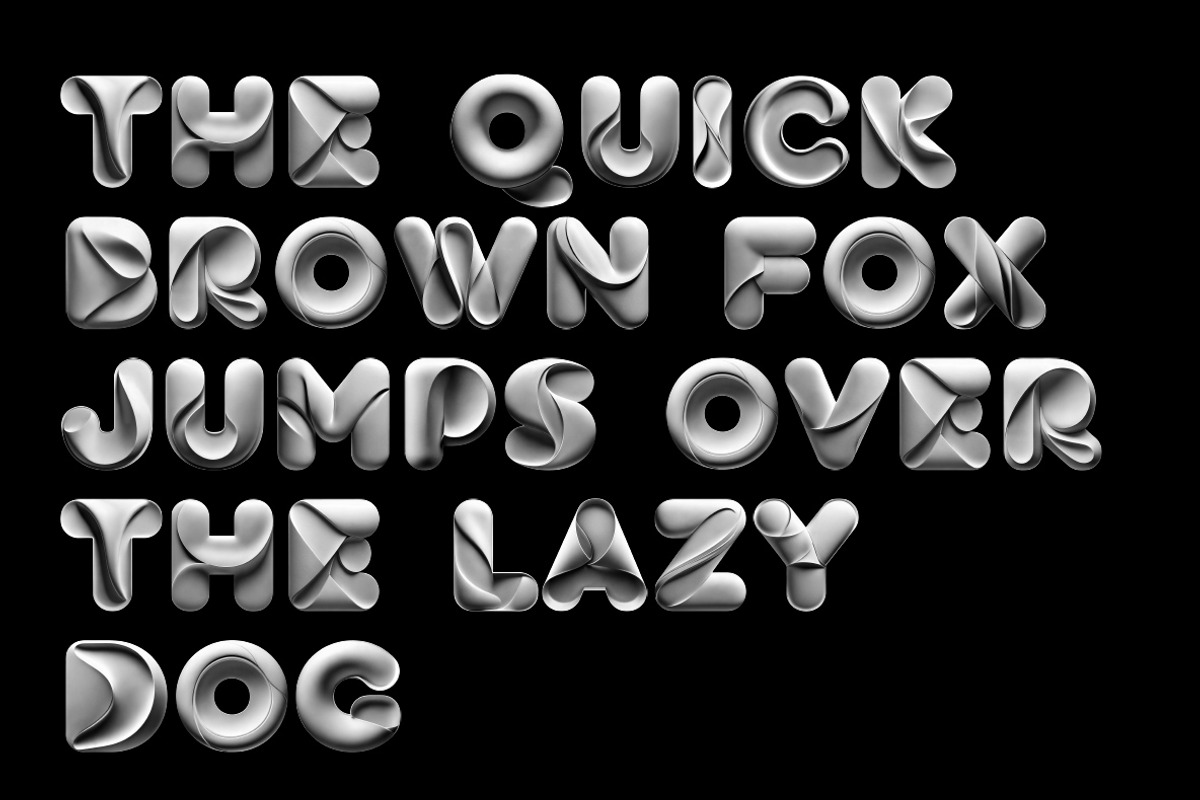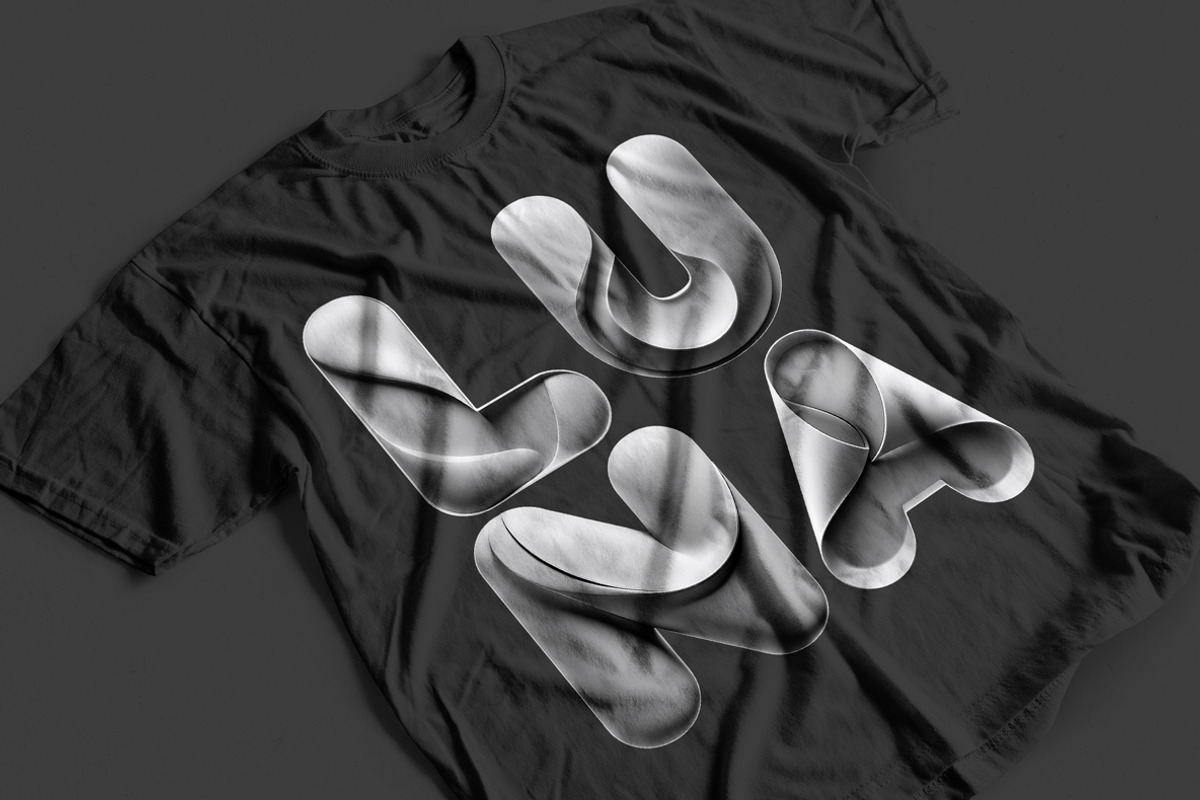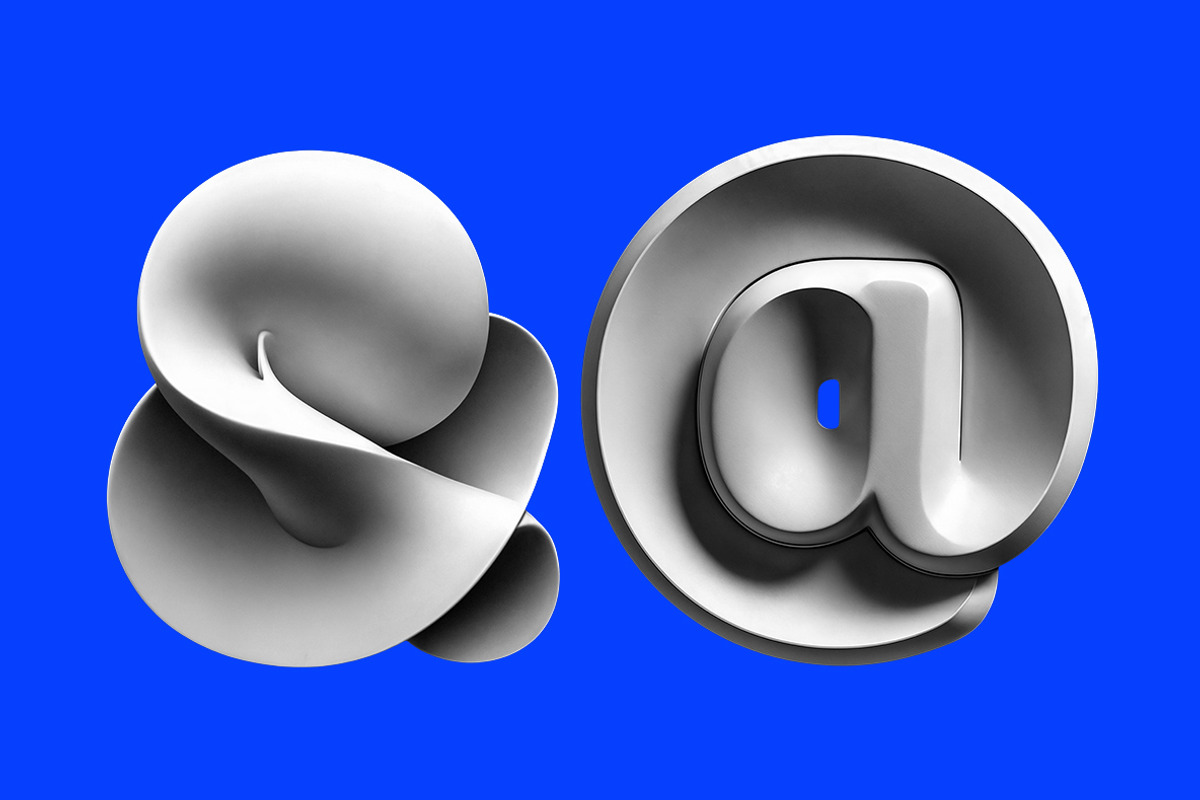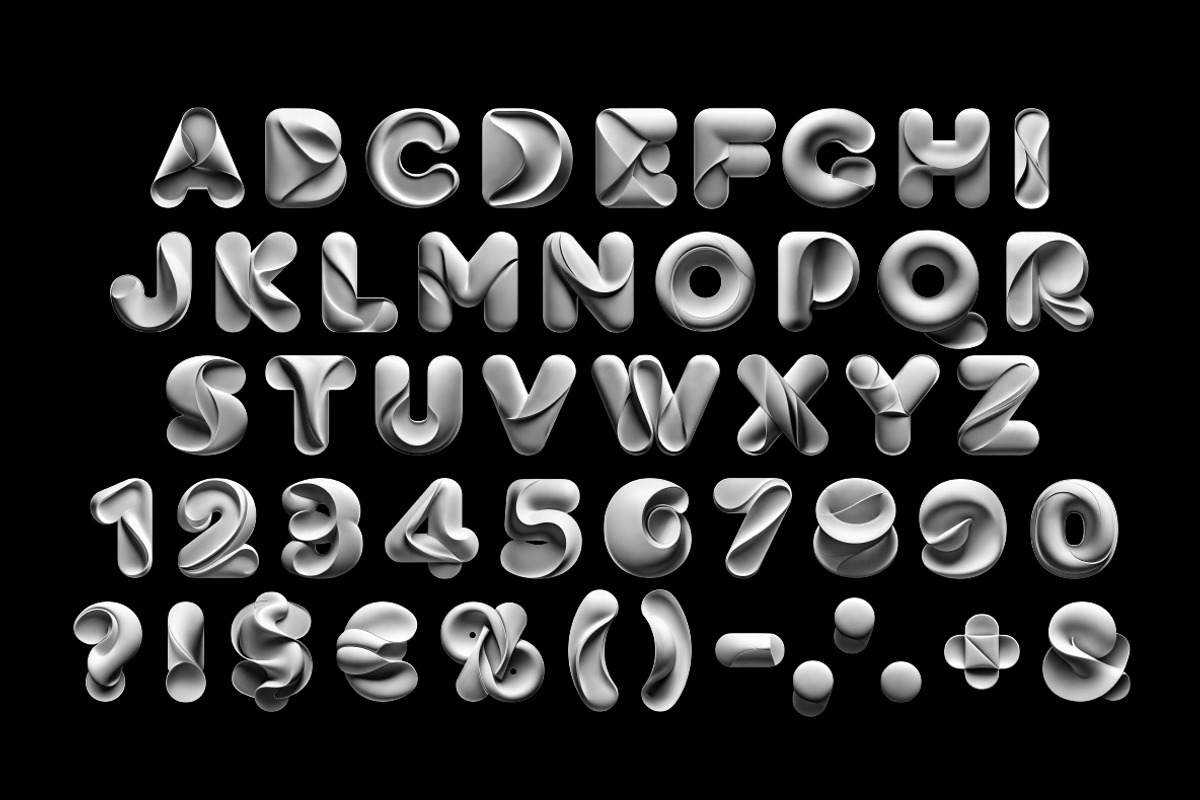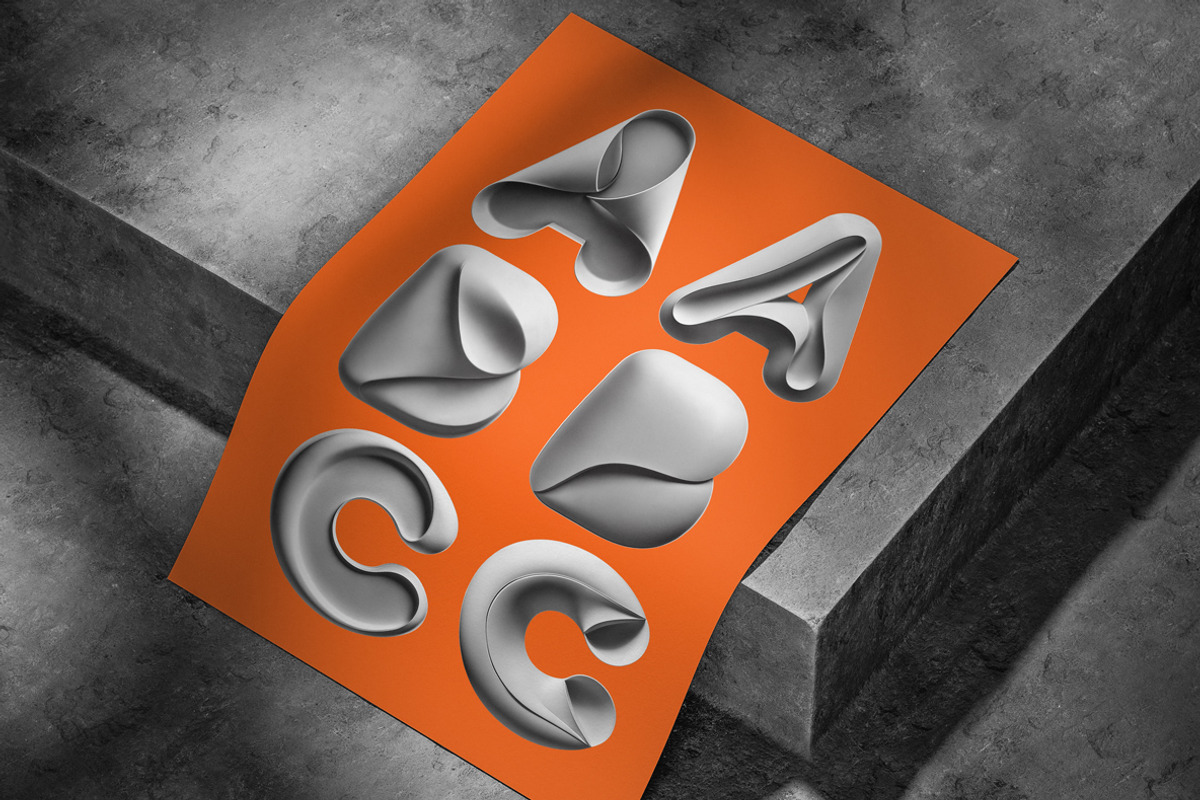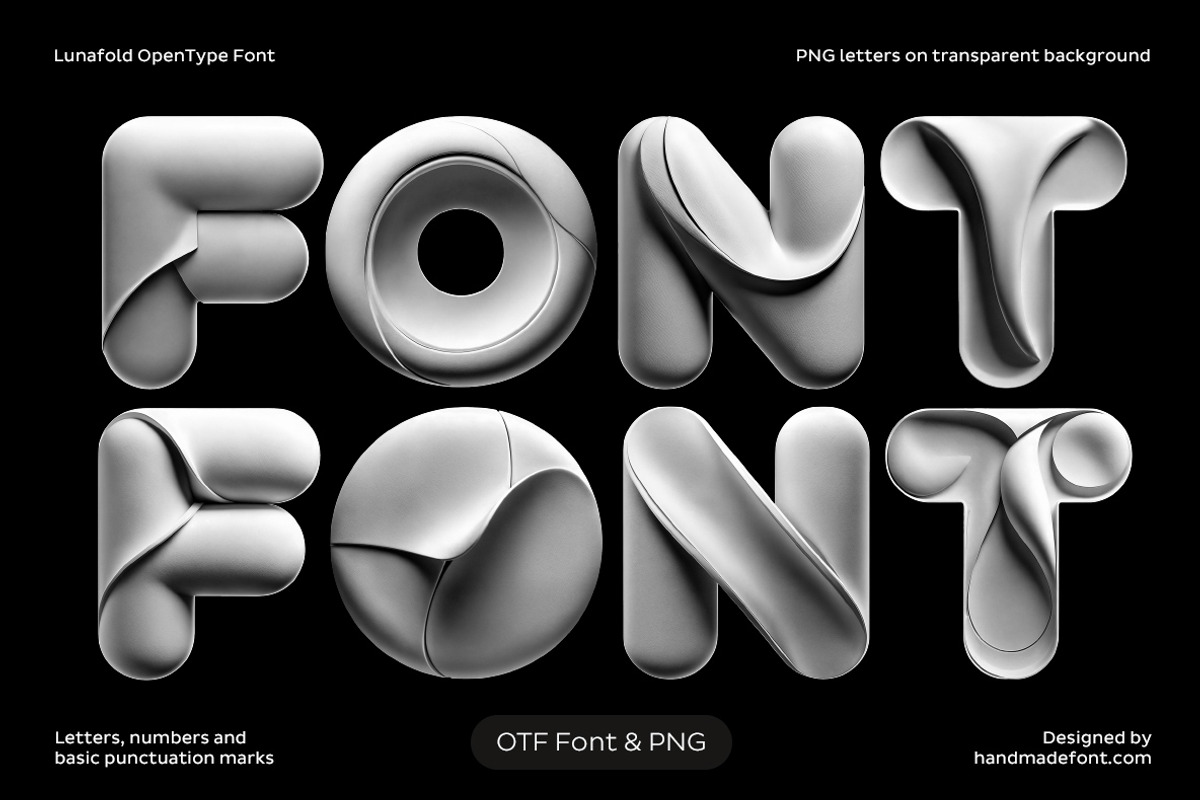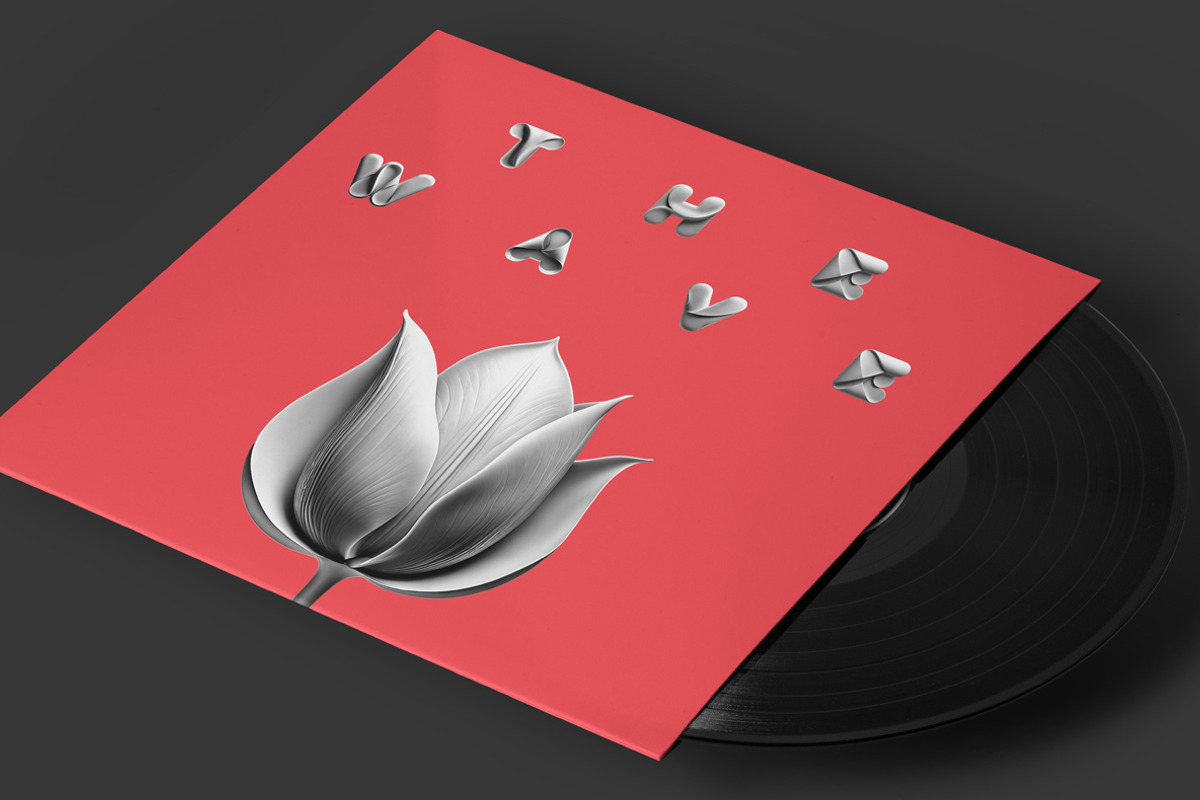
Lunafold Font
Lunafold Font is a sleek and avant-garde typeface inspired by folded metal and futuristic sculpture. Its bold, rounded forms twist and curve like carefully bent sheets, creating a sense of depth and movement within each letter. With its polished, metallic-like texture and smooth dimensional folds, Lunafold delivers a unique balance of elegance and innovation. Ideal for luxury branding, cutting-edge editorial layouts, or striking visual identities, this font turns text into an art form. Lunafold isn’t just typography — it’s a design statement, blending modern minimalism with dynamic, sculptural beauty to make every word feel powerful and refined.
- Letters : A B C D E F G H I J K L M N O P Q R S T U V W X Y Z
- Numbers : 0 1 2 3 4 5 6 7 8 9
- Others : ! ? - . ' $ € % & # @